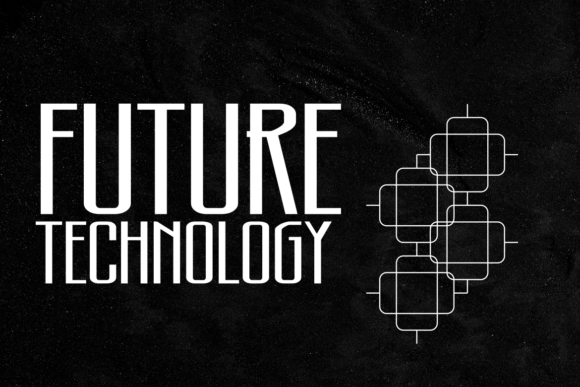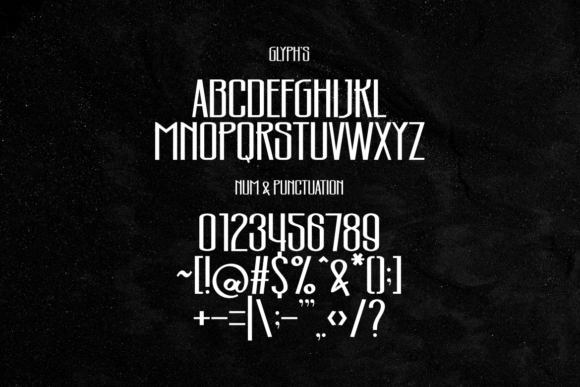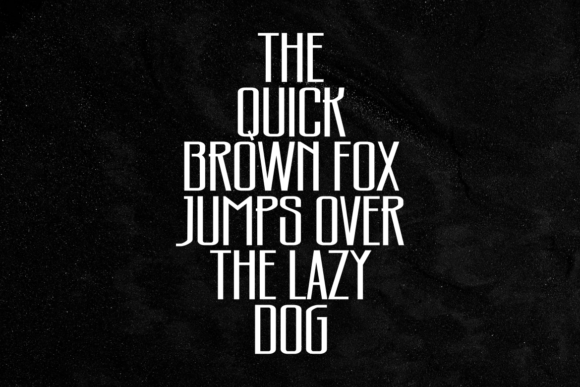
Unlocking the Future of Typography
Have you ever found yourself stuck in a design rut, searching for that one elusive font that brings your project to life? I know I have. But what if I told you that the perfect font is just around the corner? Enter the Bangren Font, a game-changing typeface that’s about to revolutionize the way we design.
Designed with a futuristic twist, the Bangren Font seamlessly blends the worlds of technology, sports, and automotive design, making it the perfect choice for any project that requires a modern, high-tech feel. Whether you’re working on sports graphics, video game aesthetic, or techno-forward designs, this font is sure to elevate your work to new heights.
Bangren Font Key Features
- Unique Characteristics: Bangren Font features a unique blend of modern and traditional design elements, with intricate details and ornate flourishes that set it apart from other fonts.
- Font Style: Bangren Font is a sans-serif font with a modern and sleek design, perfect for use in digital design, publishing, and branding projects.
Bangren Font Review
As a designer, I was excited to dive into the Bangren Font and see what it had to offer. Overall, I was pleasantly surprised by the unique qualities it brought to the table. ✨ One of the standout features of Bangren is its bold and futuristic aesthetic, making it perfect for sci-fi themed designs, tech companies, or anyone looking to add a touch of modernity to their brand. ✨ The font’s geometric shapes and clean lines also make it a great choice for minimalist designs.
However, there are some limitations to consider. ⚠️ One of the main issues I had with Bangren was its limited font sizes. The font starts to look a bit pixelated when scaled up, which may not be ideal for larger text or headings. ⚠️ Additionally, the font’s bold weight can be a bit overwhelming, so be careful not to overdo it.
Overall, I think Bangren Font is a solid choice for designers looking for a bold and modern font. While it may have some limitations, its unique aesthetic and versatility make it a great addition to any design toolkit.
- Bold and futuristic aesthetic
- Perfect for sci-fi themed designs or tech companies
- Geometric shapes and clean lines
- Limited font sizes
- Can look pixelated when scaled up
Tips for Getting the Most Out of Bangren Font
To get the most out of Bangren Font, consider the following tips:
- Use it for titles and headings to add a touch of elegance.
- Combine it with other fonts to create a unique and eye-catching design.
The Bangren Font is ideal for:
- Business cards and branding materials.
- Magazine and newspaper headlines. Alternatives to Bangren Font
- Choose a quote that resonates with your desired theme.
- Use the Bangren Font to create a bold, playful heading with the quote.
- Add watercolor elements, such as splatters or subtle textures, to give the design a soft, organic feel.
- Choose a bold, high-contrast color scheme to make the Bangren Font stand out.
- Use the font to create a custom logo that incorporates your brand’s initials or a key word.
- Balance the boldness of the Bangren Font with clean, geometric shapes to create a modern, sophisticated look.